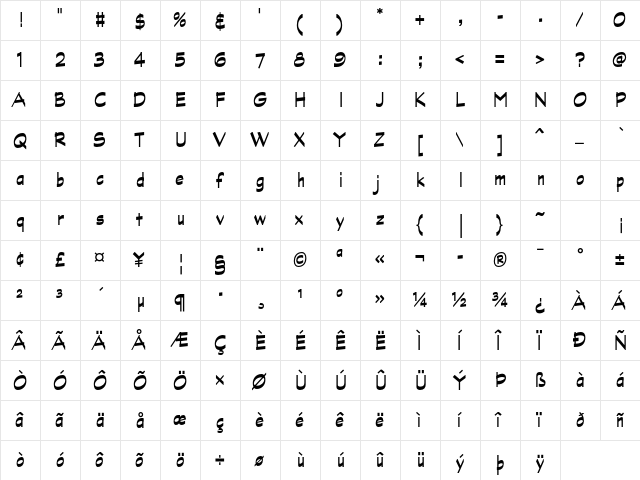
Graphite Std Bold Narrow Font Preview
| Designer | David Siegel |
Design Context for Graphite Std Typeface
Graphite Std takes a measured approach to typography — its balanced proportions and neutral character make it a reliable workhorse for both digital and print work. The heavy weight commands attention and anchors typographic hierarchies. The condensed width makes it efficient for tight spaces without sacrificing legibility.